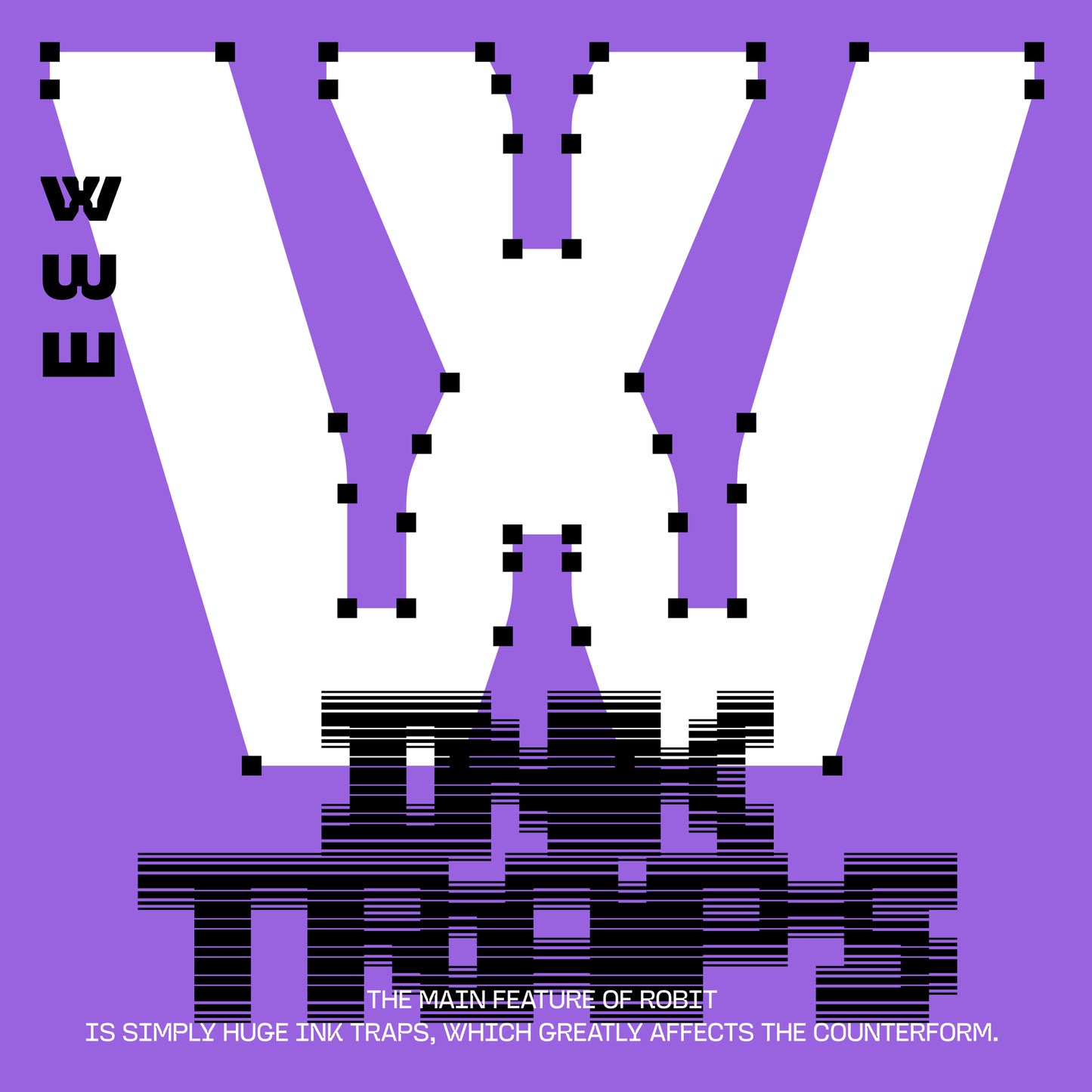
T1 Robit
T1 Foundry
T1 ROBIT is a tech brutal typeface with huge ink traps and humanistic shapes. It draws inspiration from sci-fi visual culture, futurism as well as industrial design.
T1 ROBIT consists of 10 styles, but provides a lot of opportunities for experimentation. For example, it has a Stylistic Set with rough square letters. And it also has a very, very large number of unusual ligatures, alternative characters, arrows and more.
Equipped with Extended Latin and Cyrillic support.
— TOTAL GLYPHS SET : 1121 glyphs;
— 10 STYLES (5 WEIGHTS) + VARIABLE
— LATIN EXTENDED
— SUPPORT 210+ LANGUAGES
— CRYLLIC + BULGARIAN LETTERS
— PROPORTIONAL, CIRCLED, TABULAR NUMERALS, SUPERIORS, INFERIORS, FRACTIONS
— PUNCTUATIONS AND GEOMETRIC SYMBOLS
— MANY ARROWS
— STYLISTIC SETS (SS01-SS10)
— MANY LIGATURES
— CASE-SENSITIVE FORMS